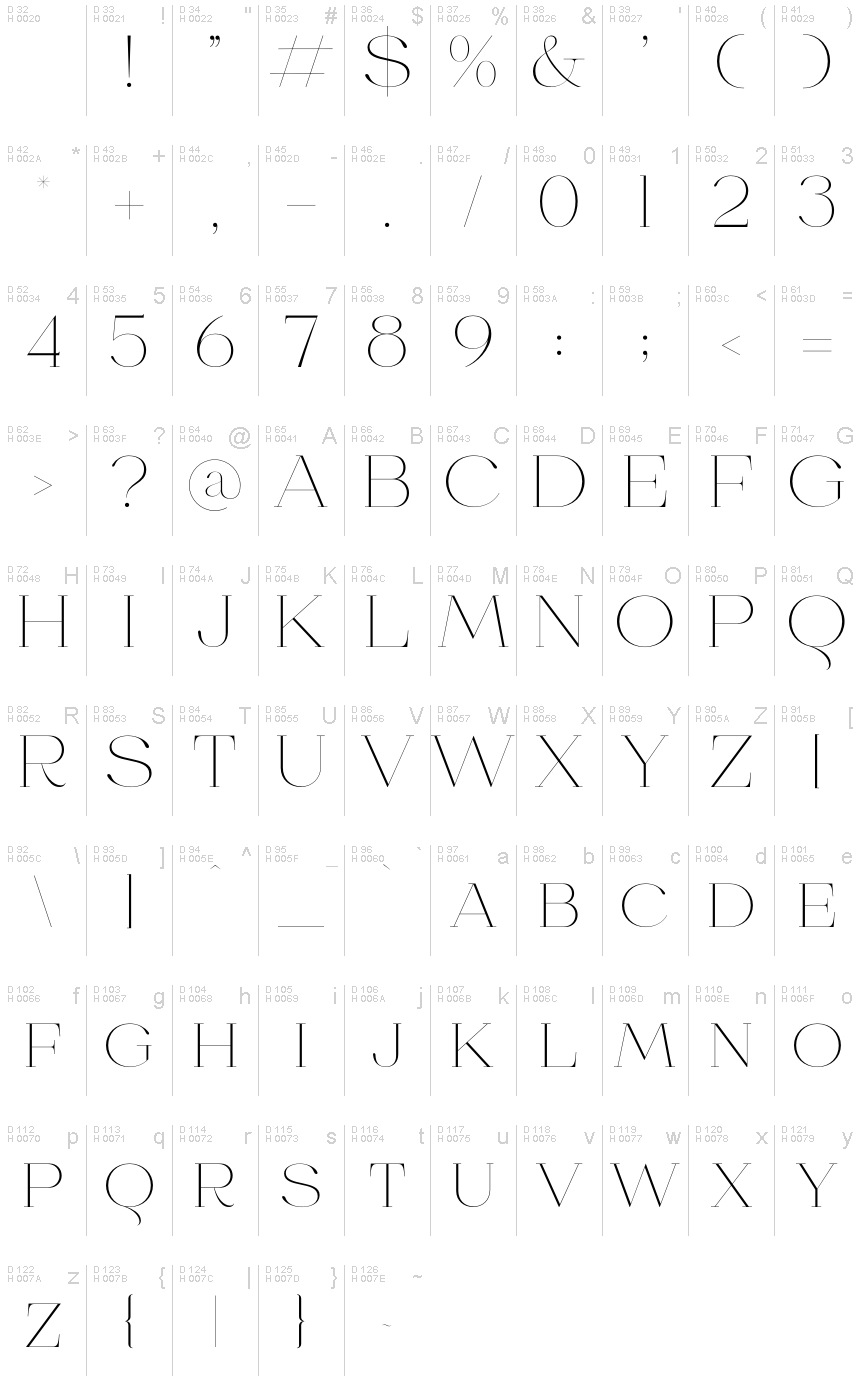
Theresa Corstance
Theresa Corstance, a serif font crafted by Storytype Studio, exudes elegance and timelessness. Its graceful letterforms and refined details create a harmonious, visually captivating aesthetic. The font's carefully balanced stroke weights and subtle calligraphic influences lend it an air of sophistication, while its accessible legibility makes it a versatile choice for a wide range of applications.
This font's versatility shines through, making it a suitable choice for high-end editorial designs, luxury branding, and formal communications. Its refined qualities also lend themselves well to print materials, digital interfaces, and even creative projects, where a touch of classic style is desired. Theresa Corstance's timeless charm and adaptability make it a compelling option for designers seeking to enhance their visual narratives with a touch of understated elegance.